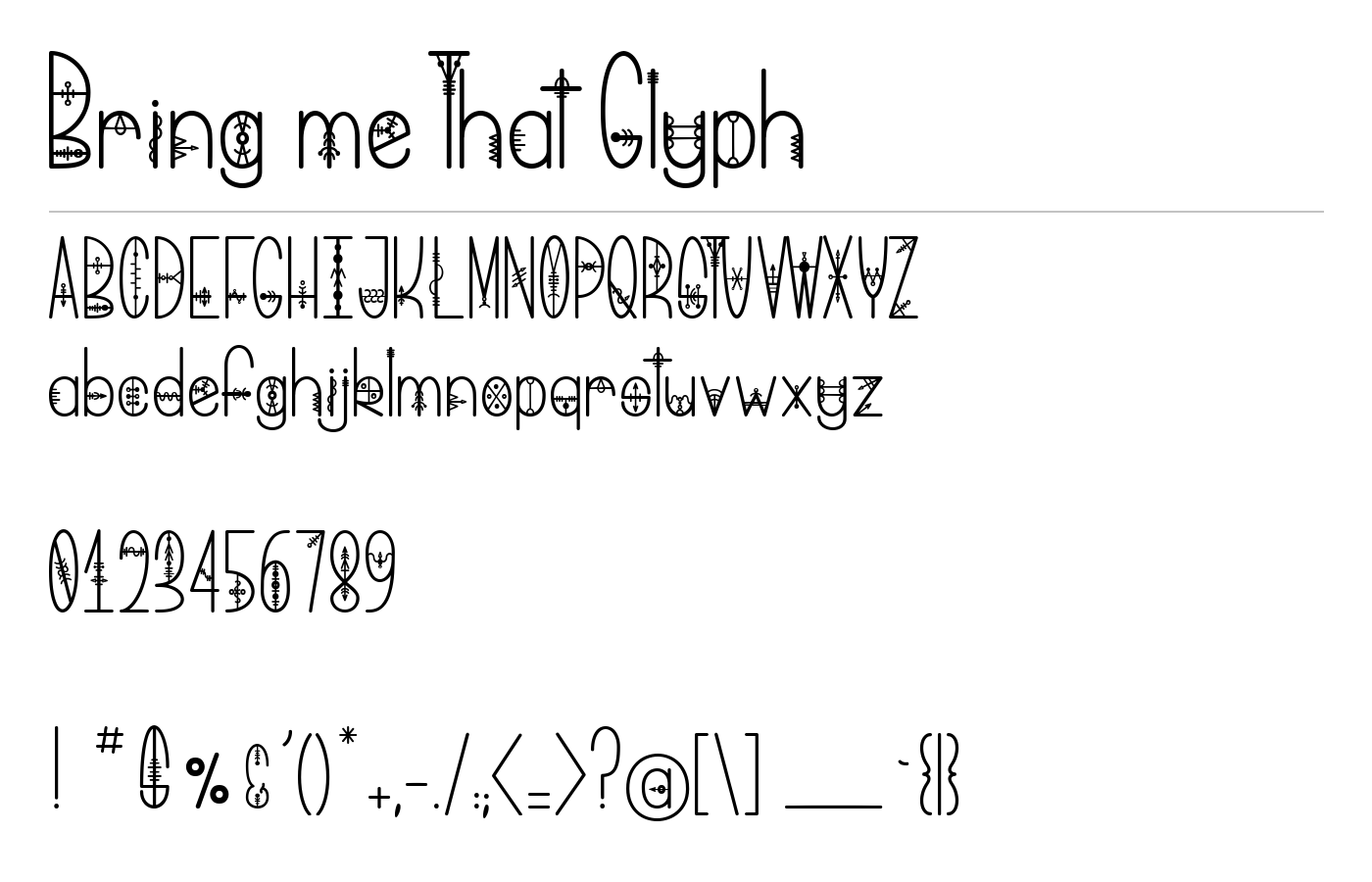
Bring me That Glyph is a whimsical and decorative sans serif font characterized by tall, slender letterforms adorned with unique, intricate glyph-like details within each character. Its light weight and narrow width give it a delicate and playful feel, making it ideal for creative projects that need a quirky and artistic touch. This font works best in display uses like logos, posters, or invitations where a distinctive, eye-catching style can shine.
Bring me That Glyph Font
About Bring me That Glyph Font